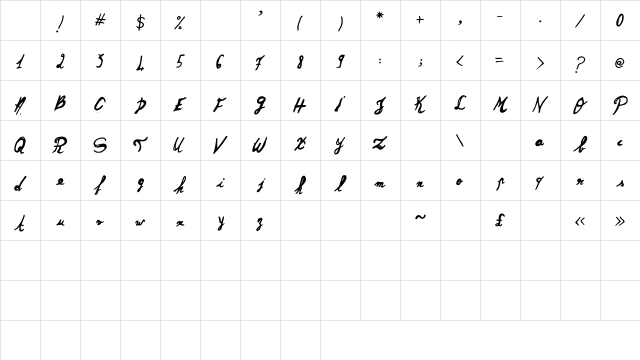
Complete Angeli2 Medium glyph index. Displaying only characters natively supported by Angeli2 Medium font.
Angeli2 is a composed and adaptable typeface that performs quietly and consistently across a wide range of design contexts.